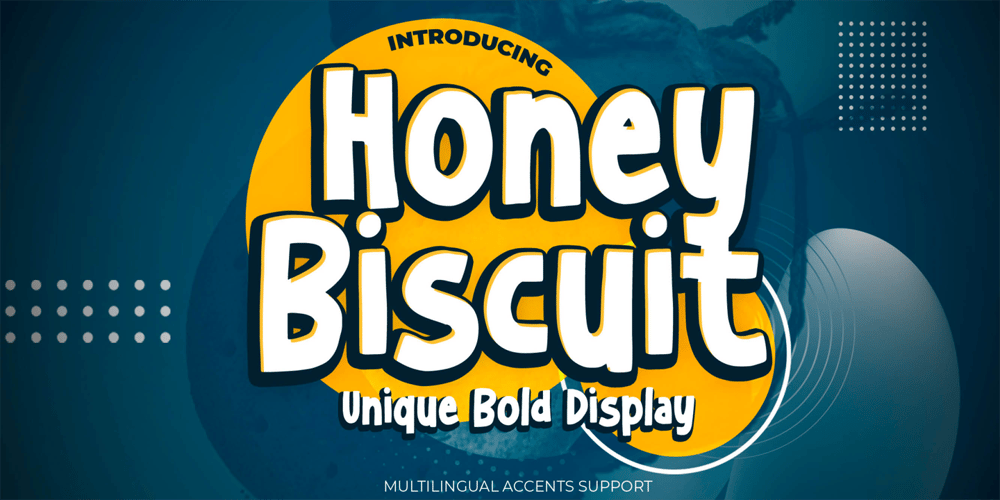
Honey Biscuit Font Family was designed by Abdul Malik Wisnu, Anang Fibriyanto and published by Gassstype. Honey Biscuit contains 1 styles and family package options. Here comes a New font, Honey Biscuit is Unique Bold Display Font this is strong Font, that is written casually and quickly amazing. Then crafted carefully drawn into vector format. This font is great for your next creative project such as logos, printed quotes, invitations, cards, product packaging, headers, Logotype, Letterhead, Poster, Label, and etc.It is perfect for any design project as Invitation,logo, book cover, craft or any design purposes.this font is great for your creative projects such as watermark on photography, and perfect for logos & branding, invitation,advertisements,product designs, stationery, wedding designs,label ,product packaging, special events or anything that need handwritting taste. You can activate Alternates glyphs OpenType panel.